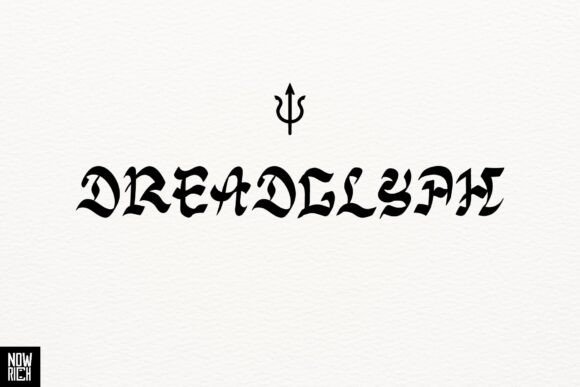
Introduction to Dreadglyph Font
Introducing a bold reinterpretation of the timeless blackletter font style Infused with the gritty energy of urban street design and a distinctly masculine edge.
This typeface blends elements of tradition with contemporary flair, offering captivating uppercase and lowercase characters that command attention Ideal for branding, logos, tattoos, and illustrations that demand a fusion of rugged authenticity and innovative style.